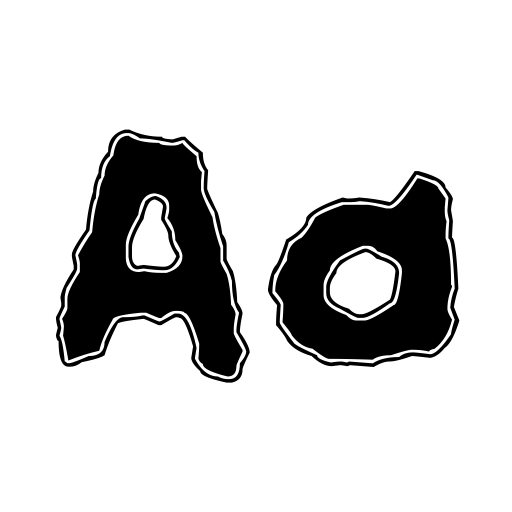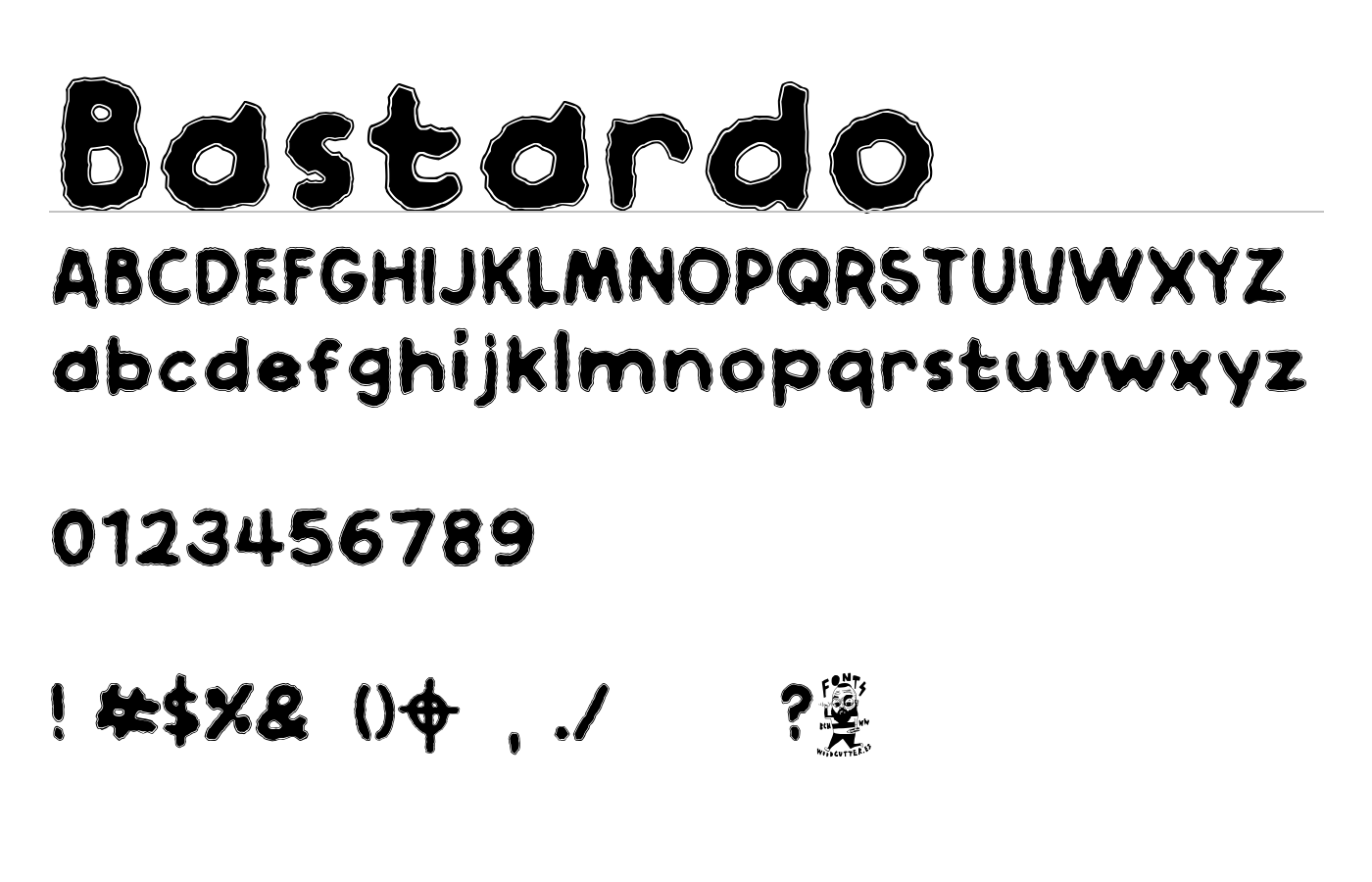
Bastardo is a bold, playful sans serif font with an irregular, hand-drawn feel that adds a unique and quirky character to its letters. Its wavy, textured edges and uneven stroke widths give it a casual, artistic vibe, making it perfect for creative projects, posters, or branding that seeks a fun and informal tone. This font works well in display settings where an eye-catching, unconventional style is desired.
Bastardo Font
About Bastardo Font